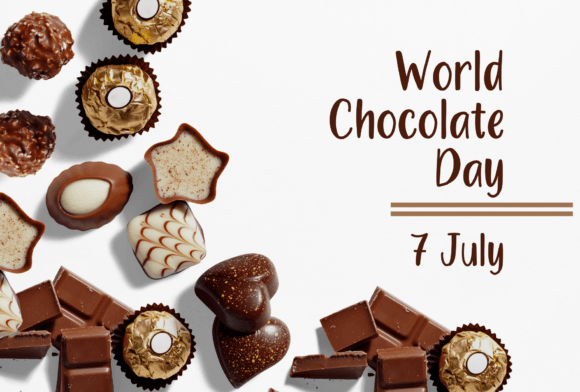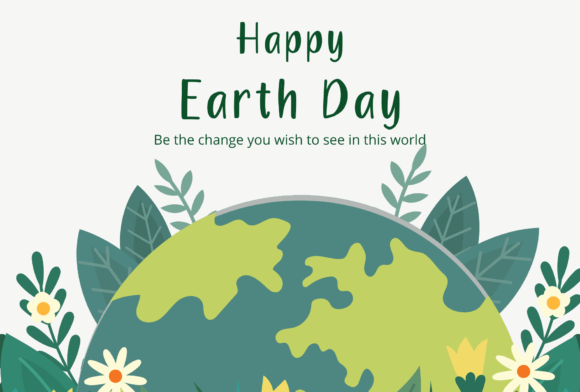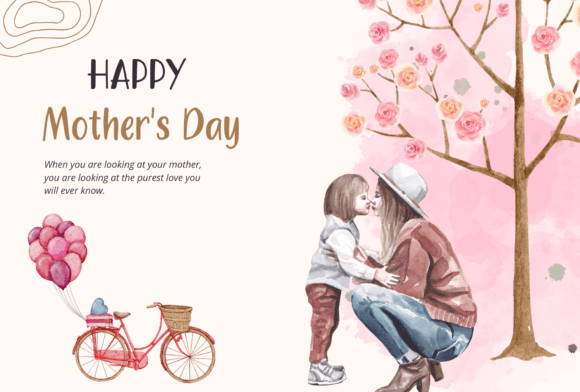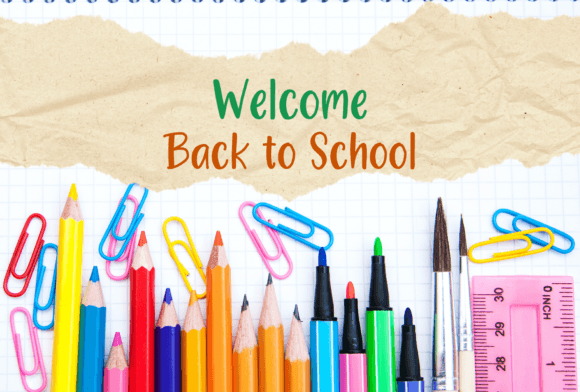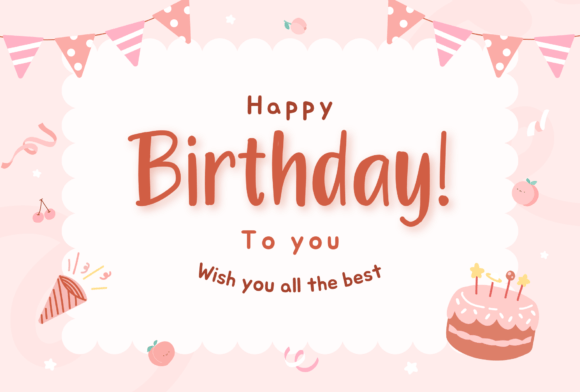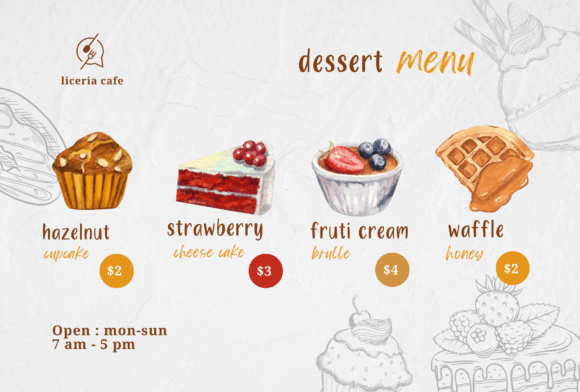
Introducing Chocolate Font: The Sweetest Addition to Your Design Collection
Are you a designer or crafter looking for a font that exudes warmth, playfulness, and sweetness? Look no further than Chocolate Font! This adorable handwritten font is perfect for creating delightful designs for special occasions like Mother’s Day, Valentine’s Day, and Christmas. In this article, we’ll dive into the world of Chocolate Font, exploring its features, uses, and benefits for designers and crafters.
What is Chocolate Font?
Chocolate Font is a cute and playful handwritten font designed to add a touch of whimsy to your designs. Its sweet and charming appearance makes it ideal for creating eye-catching and engaging content. Whether you’re working on a Mother’s Day card, Valentine’s Day invitation, or Christmas greeting card, Chocolate Font is sure to make your design stand out.
Features of Chocolate Font
So, what makes Chocolate Font so special? Here are some of its key features:
- Handwritten style: Chocolate Font boasts a beautiful, handwritten style that’s perfect for adding a personal touch to your designs.
- Playful and cute: This font is designed to be playful and cute, making it ideal for creating designs that appeal to a wide range of audiences.
- Versatile: Chocolate Font can be used for a variety of design projects, from greeting cards to social media graphics.
- Easy to read: Despite its playful nature, Chocolate Font is easy to read, making it perfect for designs that require a clear and concise message.
Uses of Chocolate Font
Chocolate Font is a versatile font that can be used for a wide range of design projects. Here are some ideas to get you started:
- Mother’s Day cards: Create beautiful and heartfelt Mother’s Day cards with Chocolate Font.
- Valentine cards: Add a touch of romance to your Valentine’s Day designs with this adorable font.
- Christmas cards: Spread holiday cheer with Chocolate Font on your Christmas cards and invitations.
- Social media graphics: Use Chocolate Font to create engaging social media graphics that showcase your brand’s personality.
- Party invitations: Create playful and eye-catching party invitations with Chocolate Font.
Benefits of Using Chocolate Font
So, why should you choose Chocolate Font for your design projects? Here are some benefits:
- Adds a personal touch: Chocolate Font’s handwritten style adds a personal touch to your designs, making them more relatable and engaging.
- Stand out from the crowd: This font’s unique and playful style helps your designs stand out from the crowd.
Tips for Using Chocolate Font
Here are some tips for getting the most out of Chocolate Font:
- Pair with complementary fonts: Pair Chocolate Font with complementary fonts to create visual interest and hierarchy.
- Use for headlines and titles: Use Chocolate Font for headlines and titles to add a touch of personality to your designs.
In conclusion, Chocolate Font is a sweet and charming addition to any design collection. Its playful and handwritten style makes it perfect for creating delightful designs for special occasions. With its versatility, ease of use, and affordability, Chocolate Font is a must-have for designers and crafters looking to add a touch of whimsy to their designs.